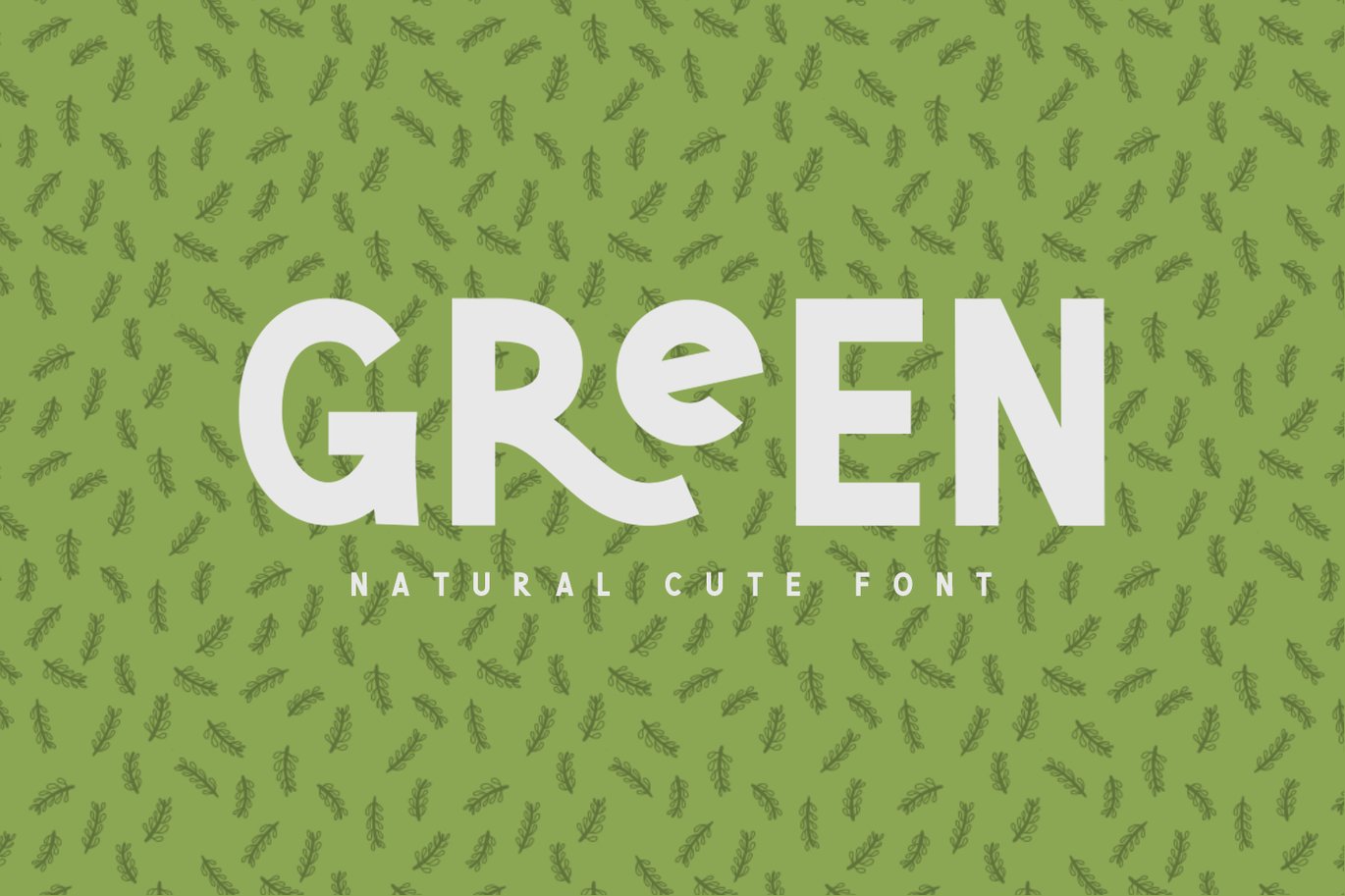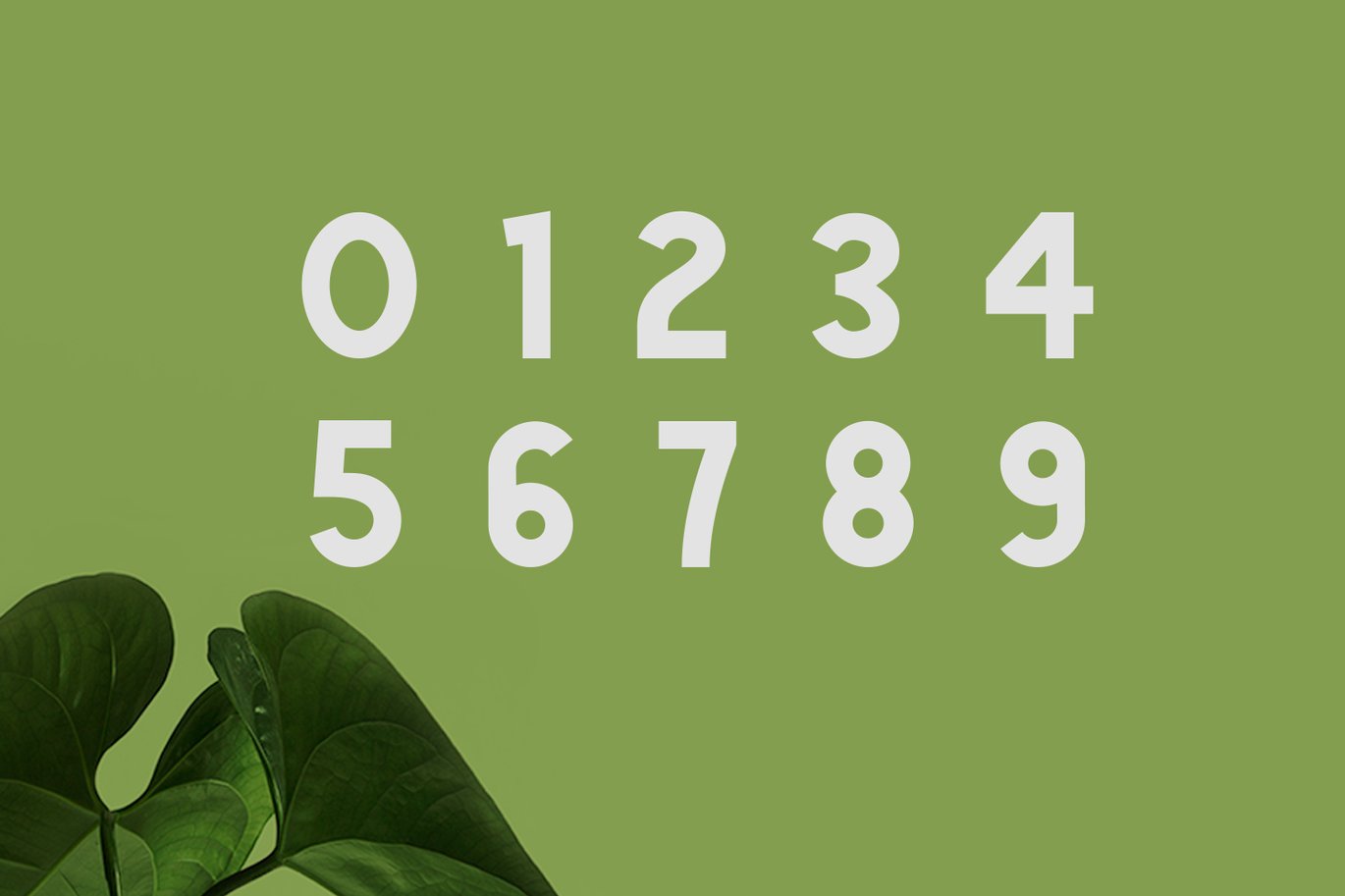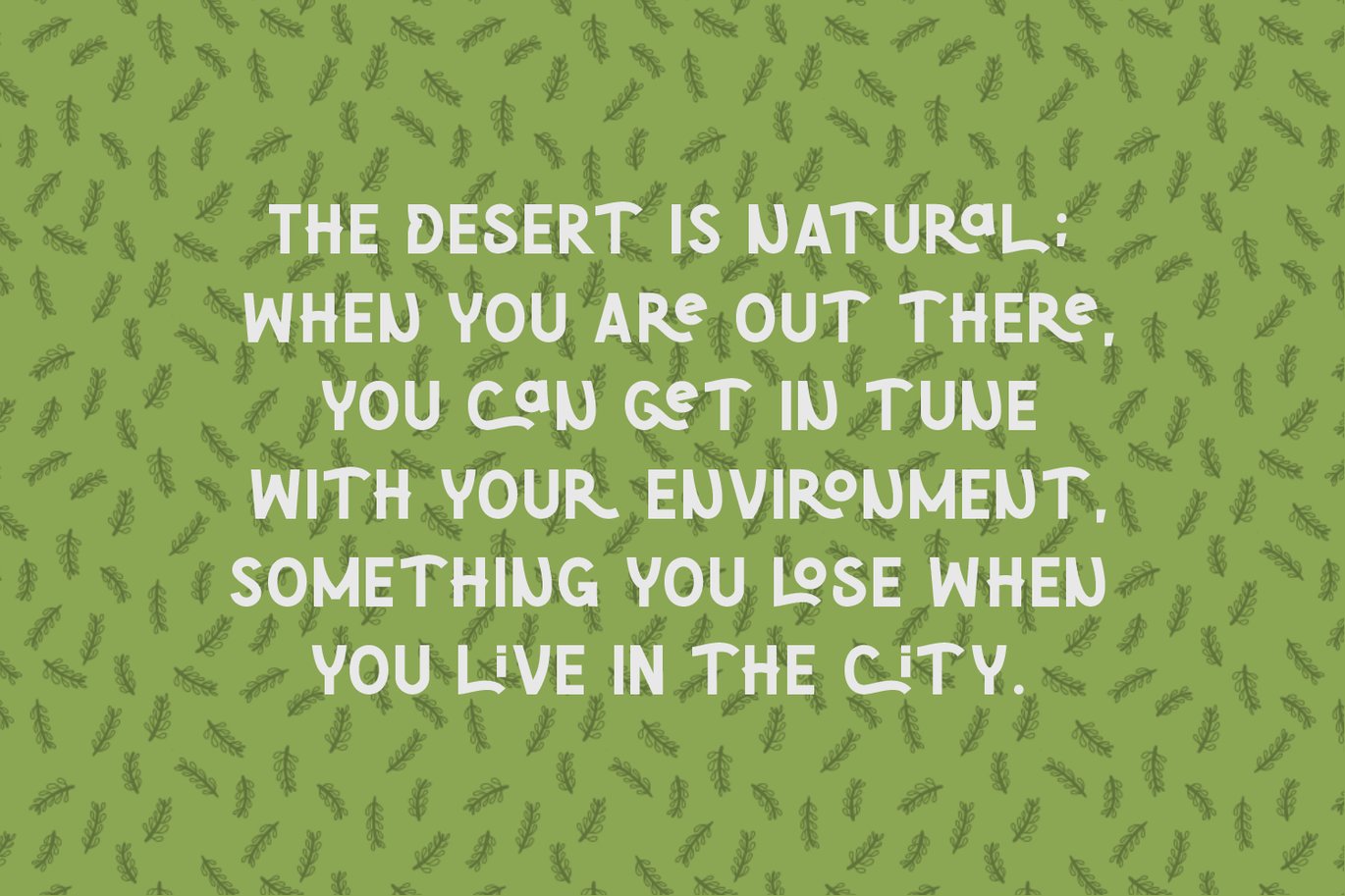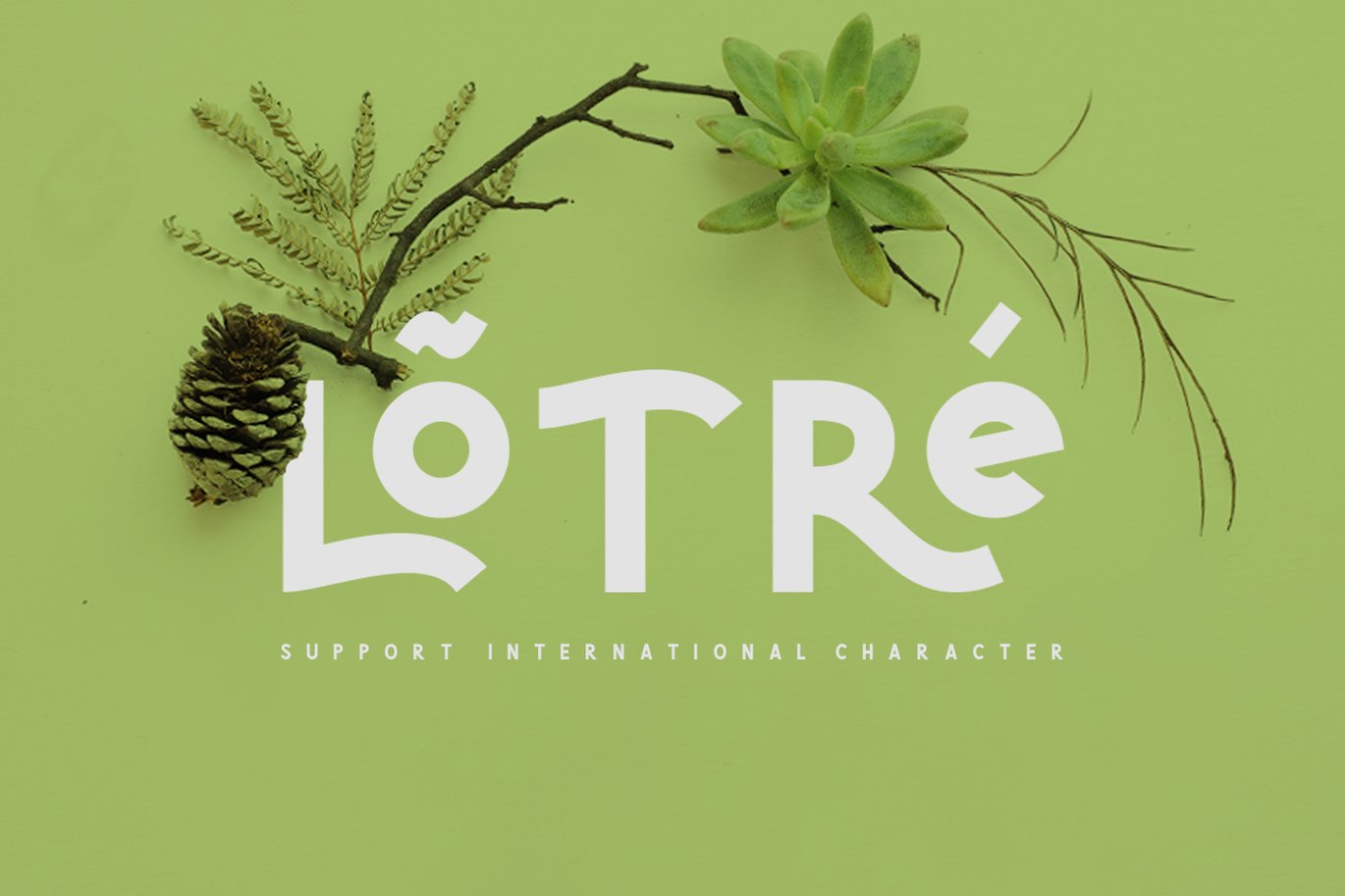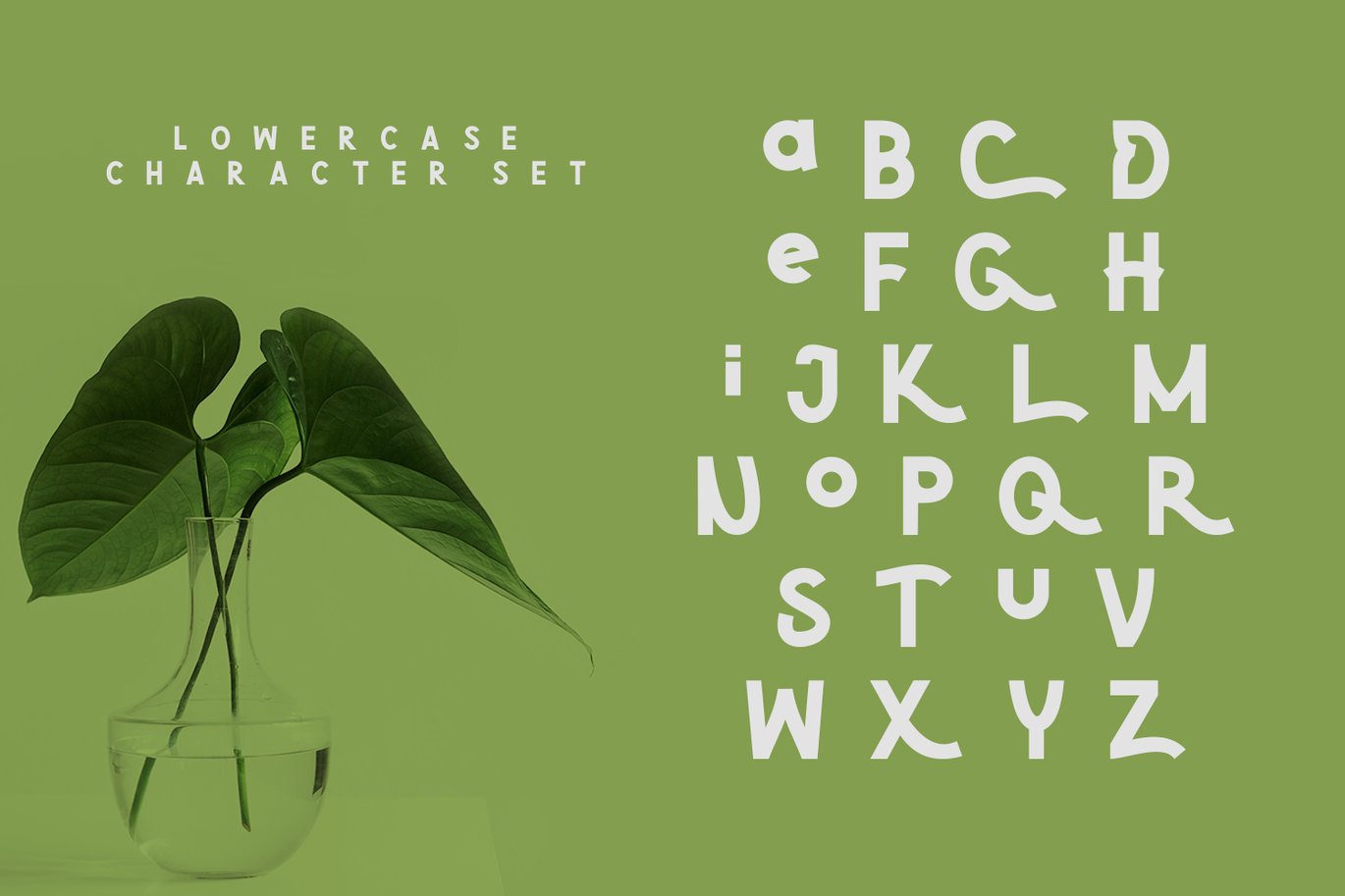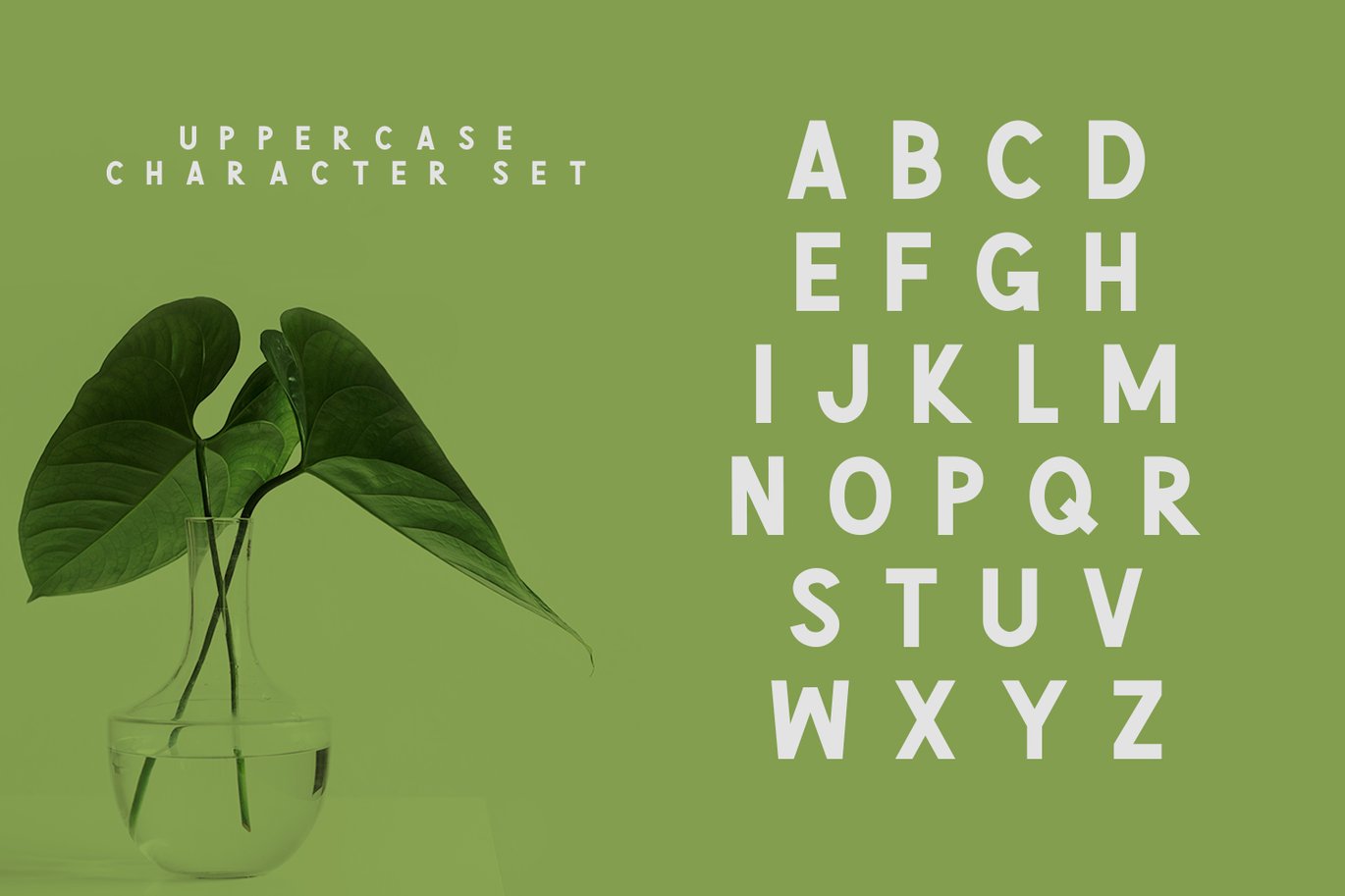
Green | Natural Cute Font
What people say about green?
“Green is the prime color of the world, and that from which its loveliness arises.” Pedro Calderon de la Barca
Therefore, we make a natural font, beauty, freshness and coolness. We hope you will feel excited when using this font. Aren’t we happy with the green one? Perfect, because the font we made is also named ‘Green’
- Green font including upper & lowercase characters, numerals and more of symbols.
- Multilingual support for various languages